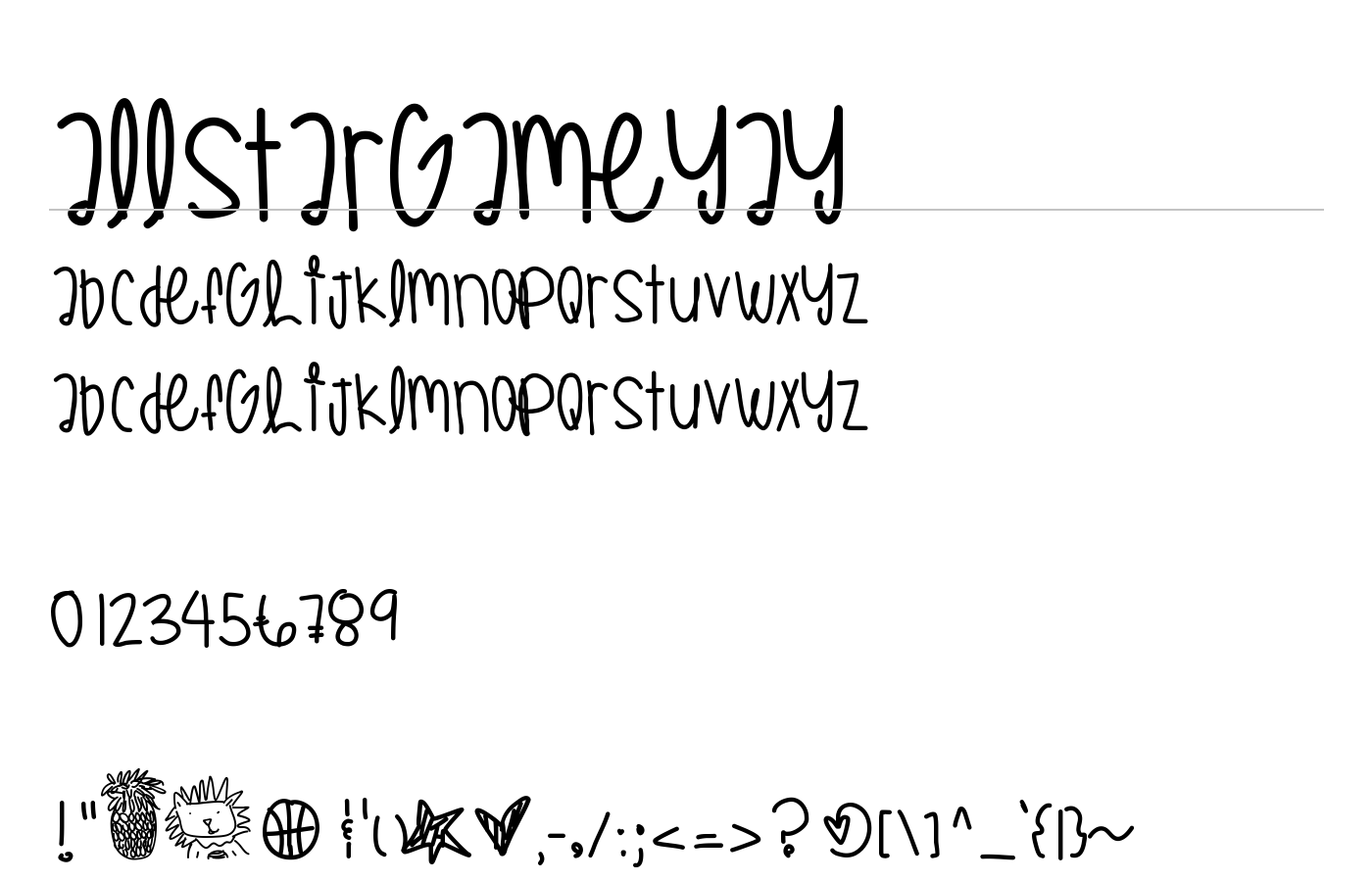
AllStarGameYay is a playful, hand-drawn sans serif font with tall, quirky letterforms and a casual, whimsical vibe. Its thin strokes and uneven lines create a light, airy feel that works well for fun, youthful designs like children's books, casual branding, or creative posters. The font’s unique symbols and informal style make it perfect for adding personality and charm to any project.
AllStarGameYay Font
About AllStarGameYay Font